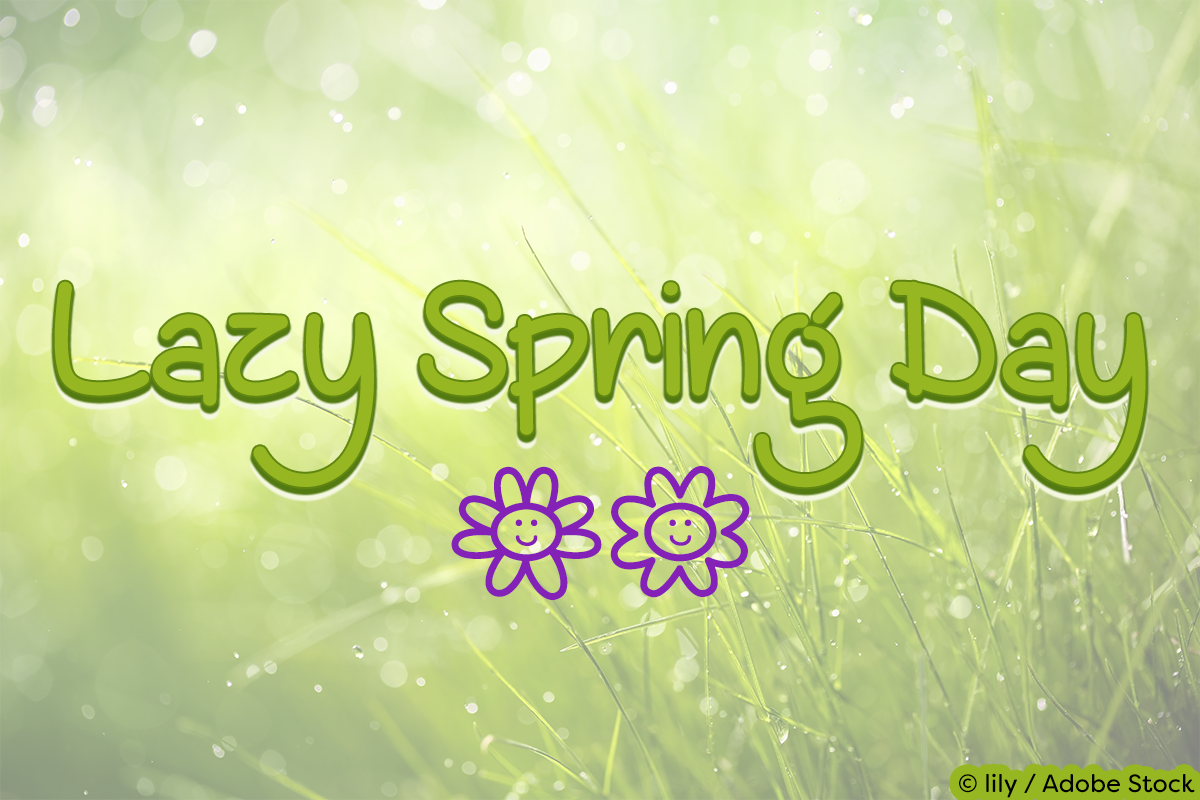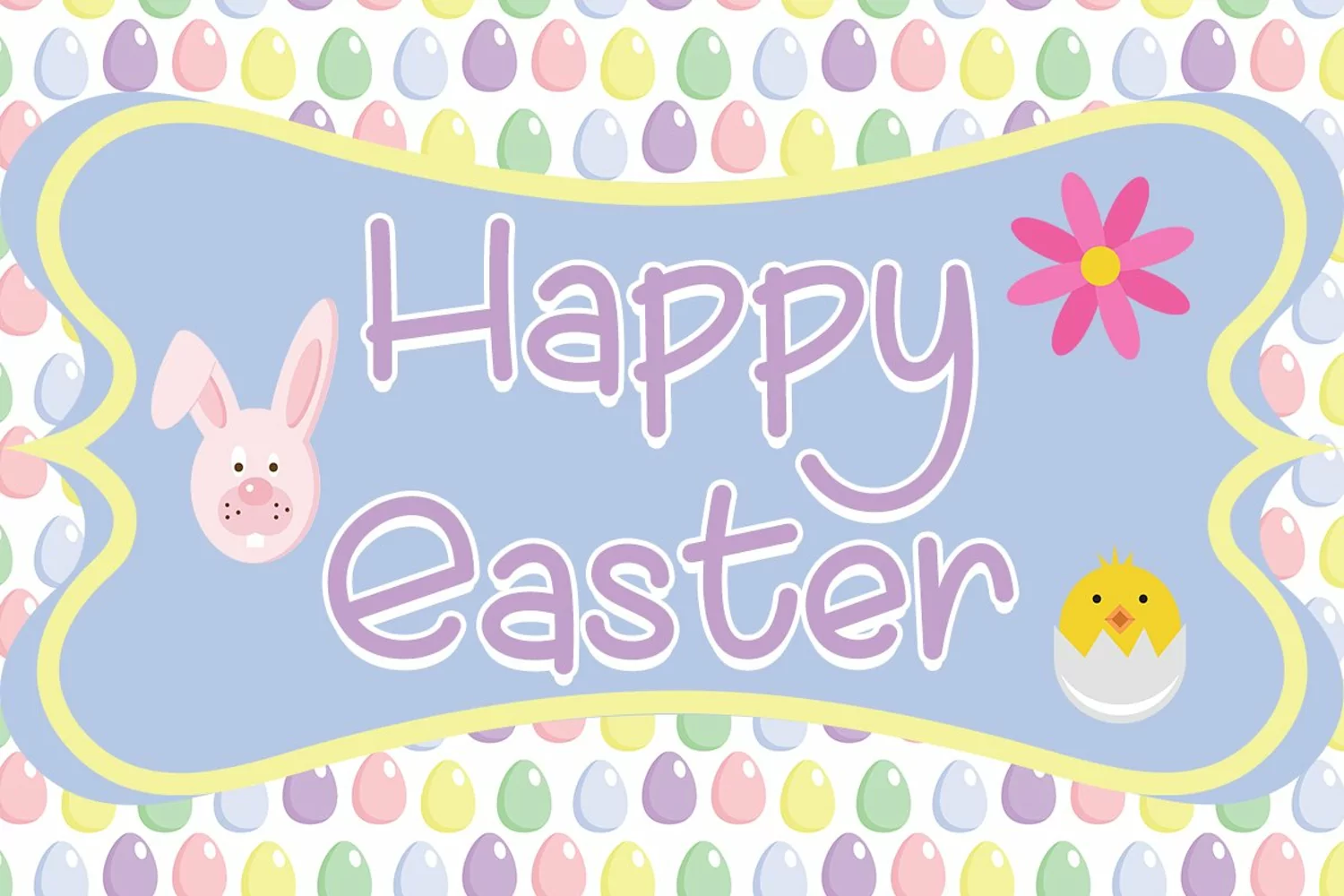
Lazy Spring Day is a funky handwritten font that is perfect for your craft and design projects!
SPECIAL SYMBOLS
Type * (asterisk) for the first flower smiley
Type (backslash) for the second flower smiley